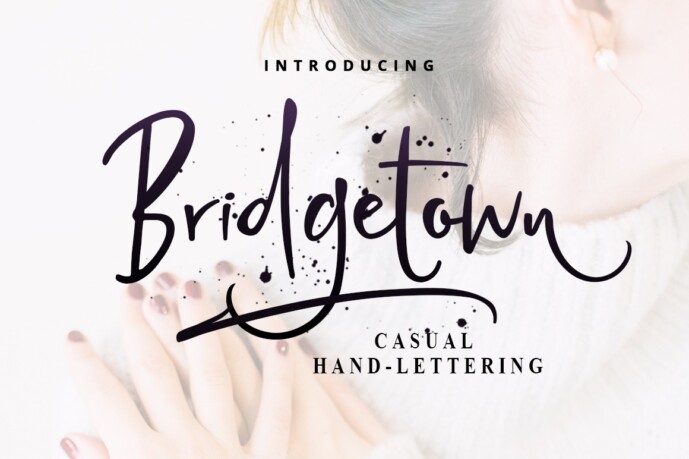
Bridgetown is a gorgeous typeface crafted for giving your designs the most elegant impression; with a visible charm, Bridgetown is a highly adaptable and gorgeous script you will find yourself using endlessly. Add this lovely freebie to your creations and take your designs to the next level!